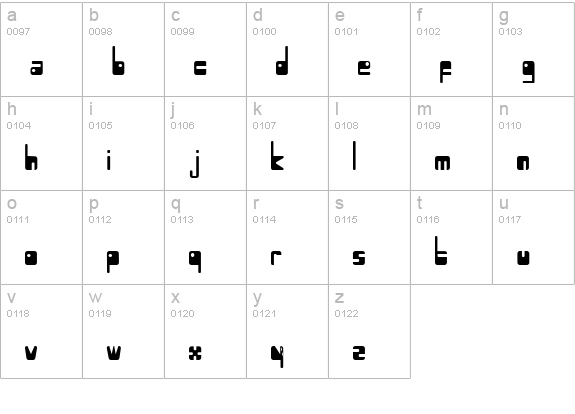
Atmosphere Font Details
Atmosphere font is a stunning and versatile typeface that exudes elegance and modernity. Its sleek lines and unique design make it perfect for a wide range of design projects, from branding to editorial design. With its clean and sophisticated aesthetic, Atmosphere font adds a touch of sophistication to any project. The best part? Atmosphere font is completely free to download at FontsMarket.com! This means you can easily access this beautiful font and use it in your projects without any cost. Whether you're working on a logo, website, or print design, Atmosphere font is sure to elevate your work and make it stand out. Don't miss out on this opportunity to enhance your designs with Atmosphere font. Download it for free today at FontsMarket.com and take your projects to the next level!